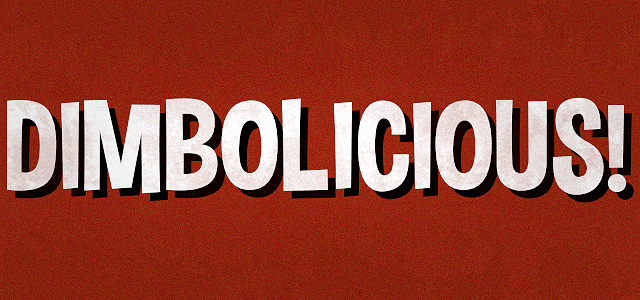
Free download Dimbo Font
Preview and download Dimbo Font. Created by Jayvee Enaguas in Fancy Cartoon styles with 100% Free license.
| Font name: | Dimbo |
| Author: | Jayvee Enaguas |
This font has inspired from 'Senorella and the Glass Huarache' and it has created by Jayvee D. Enaguas (Grand Chaos). Version 2 - Added in glyphs for Czech alphabet. © 2009, 2010, 2011, 2012 GrandChaos9000. Some Rights Reserved. (Under Licensed by Creative Commons CC-BY-SA 3.0) |